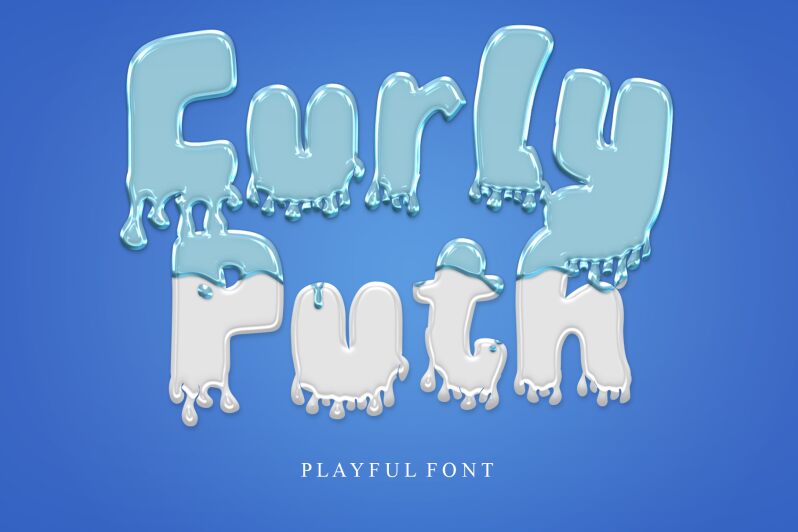
Curly Puth font by Annisa Afni is a playful free font bringing all the magic to your designs. Playful, dynamic, colorful, and fluid are just some characteristics this enthusiastic gem promises and delivers. Each character is full of youthful joy, with every word making way for another creative idea.
Curly Puth is a perfect choice for playful event decorations including girl parties as well as weddings or for fashion and beauty brands featuring makeup, jewelry, and perfume. Use it for social media posts, packaging designs, and other projects that can benefit from a design boost.